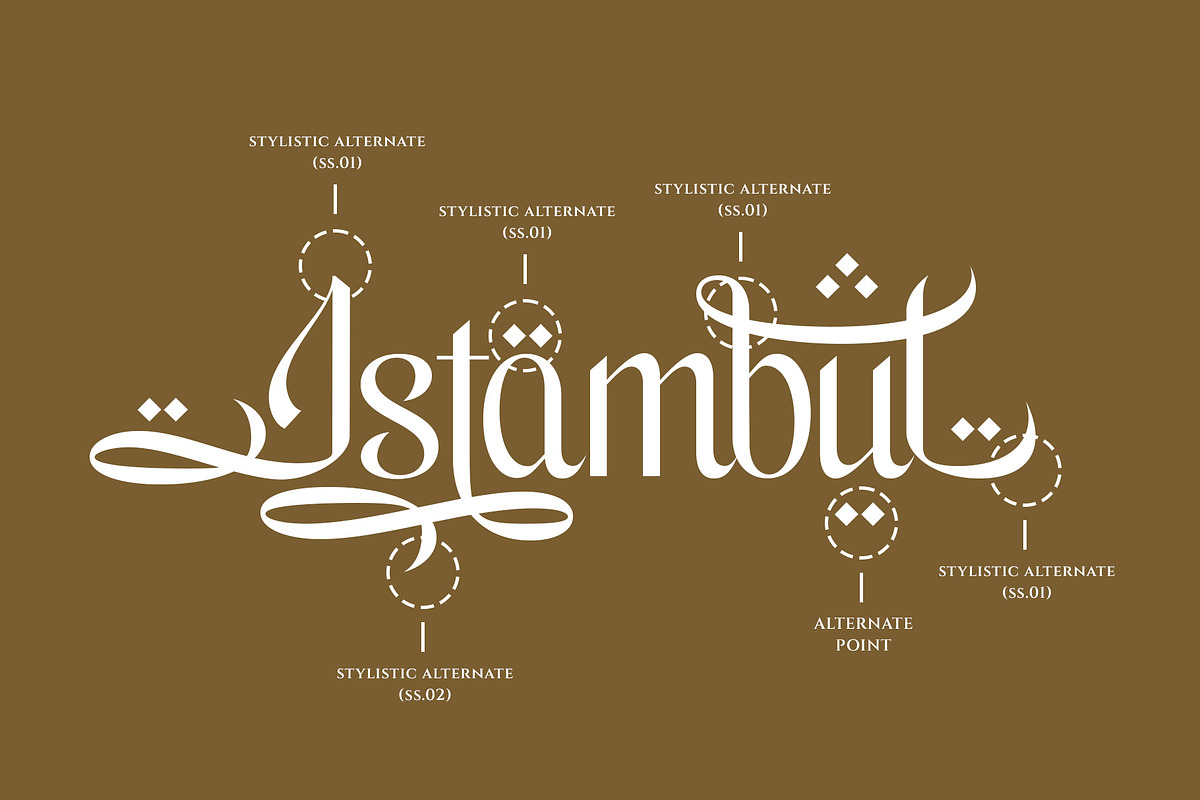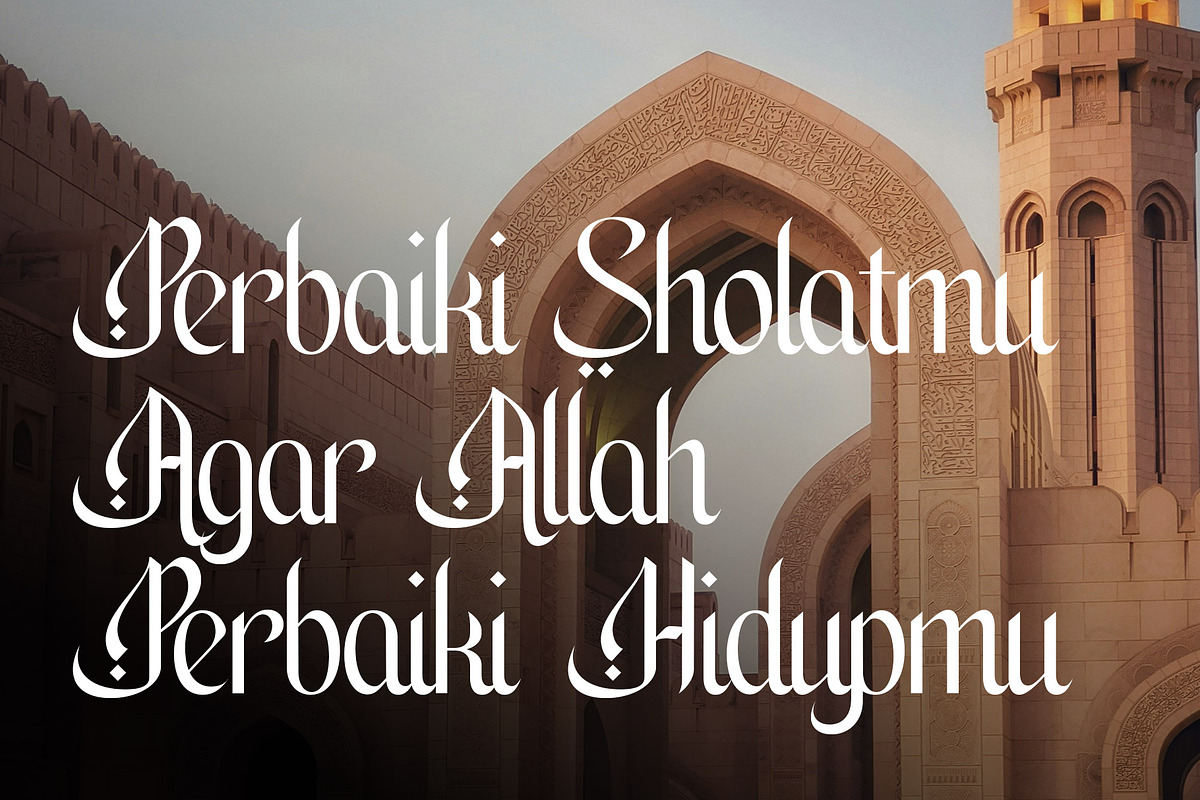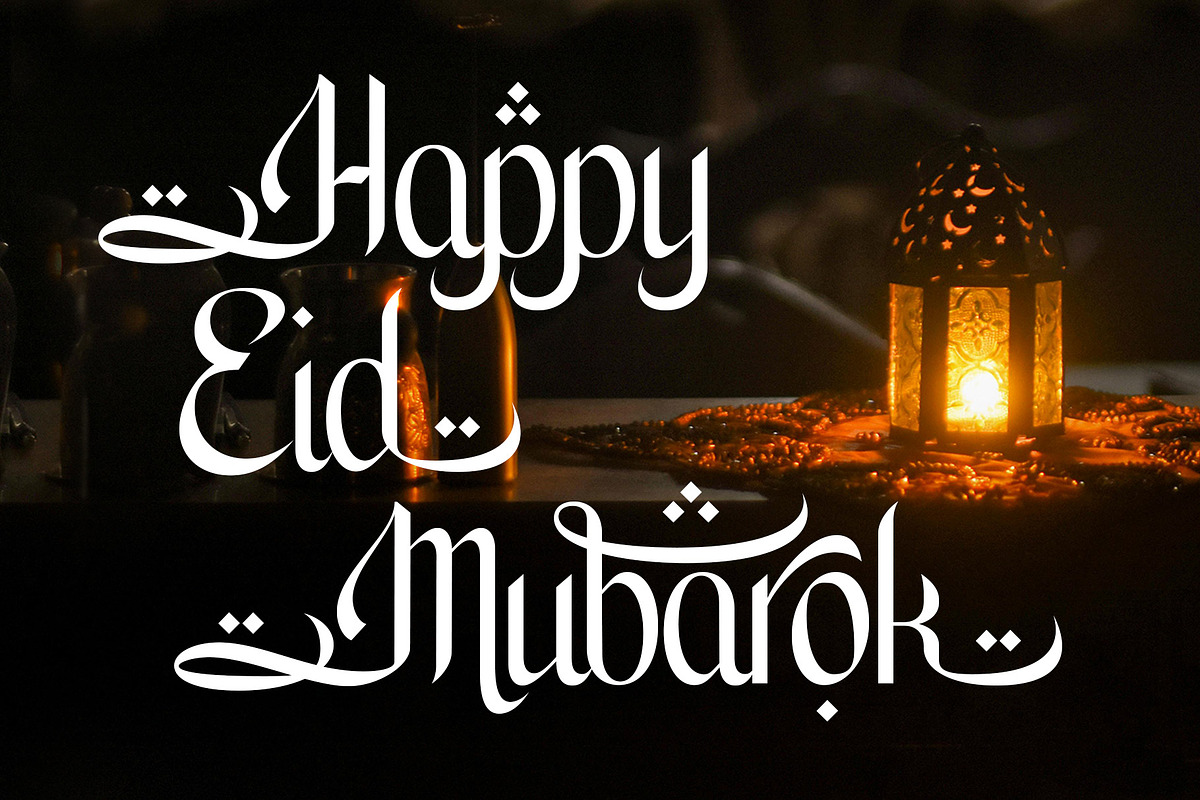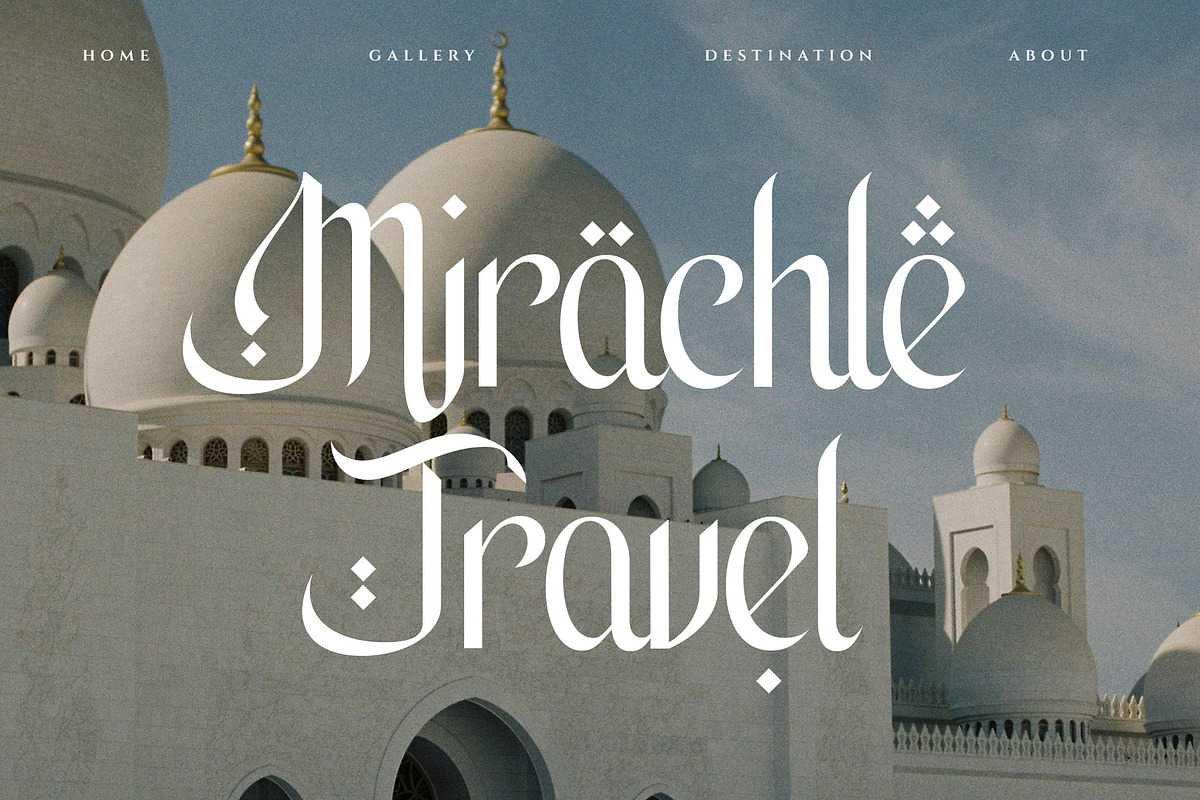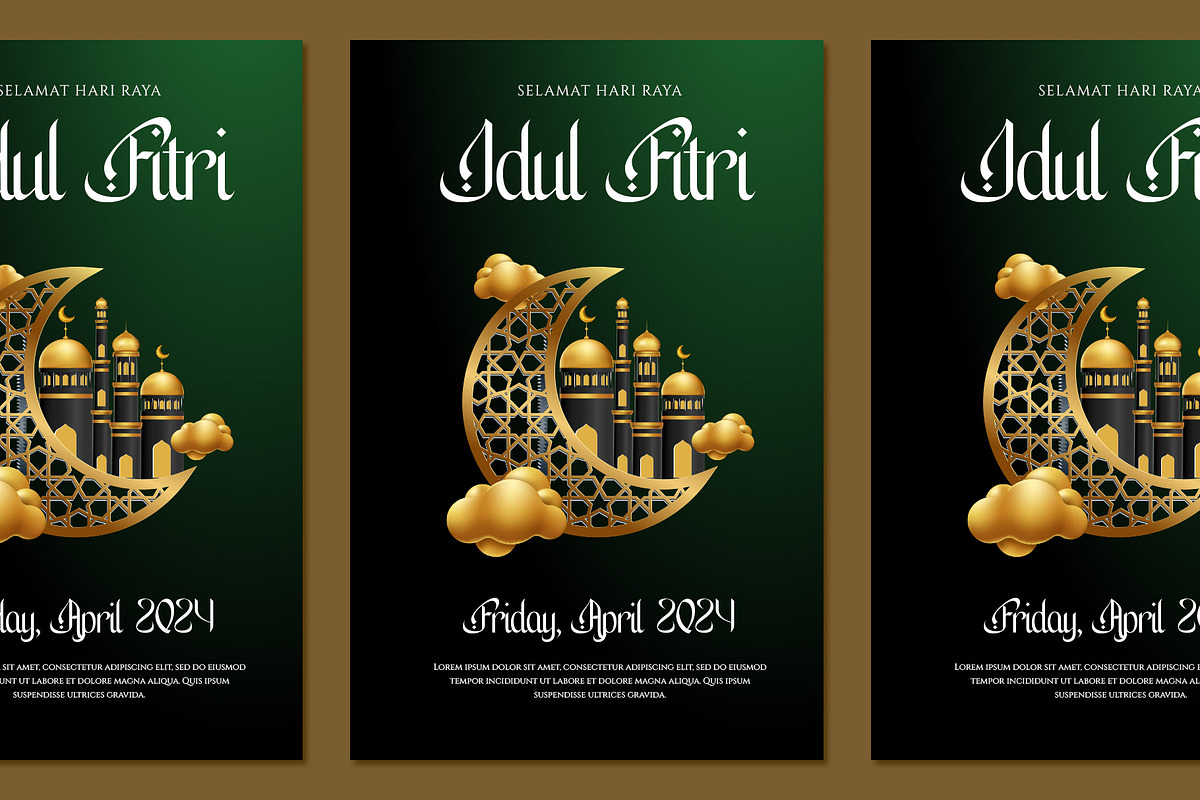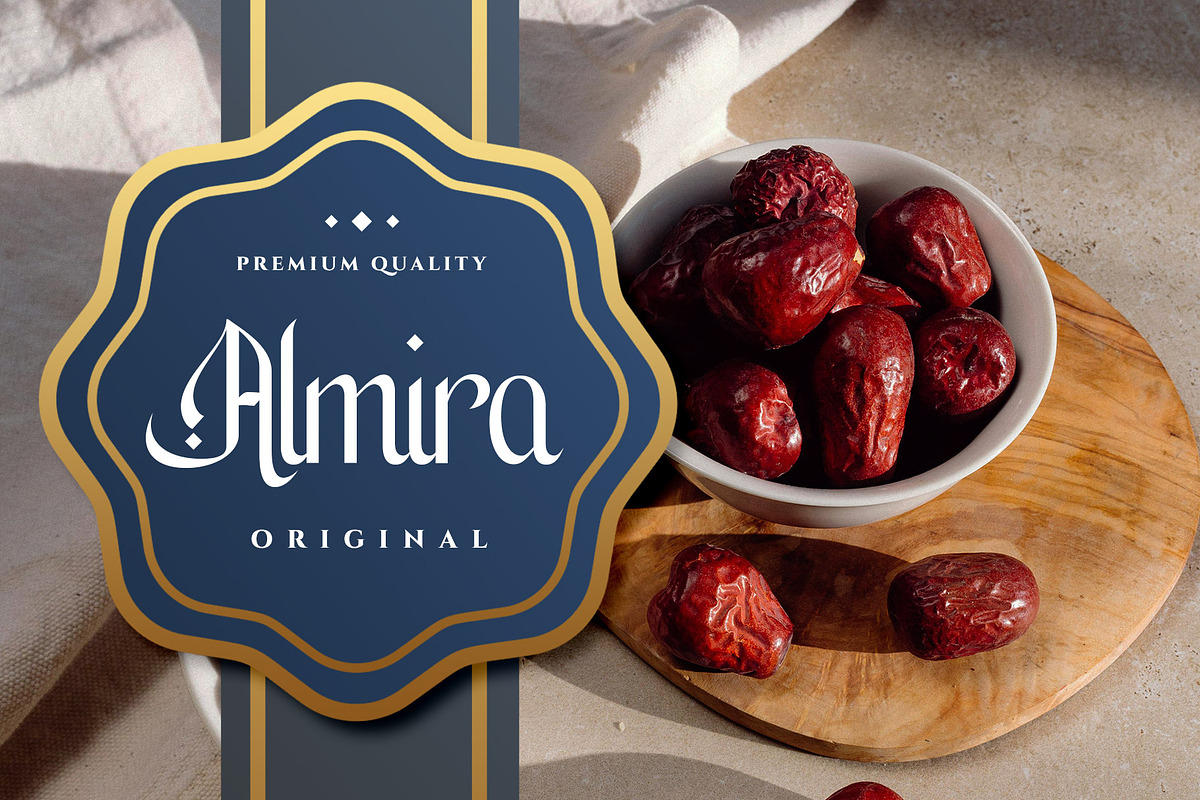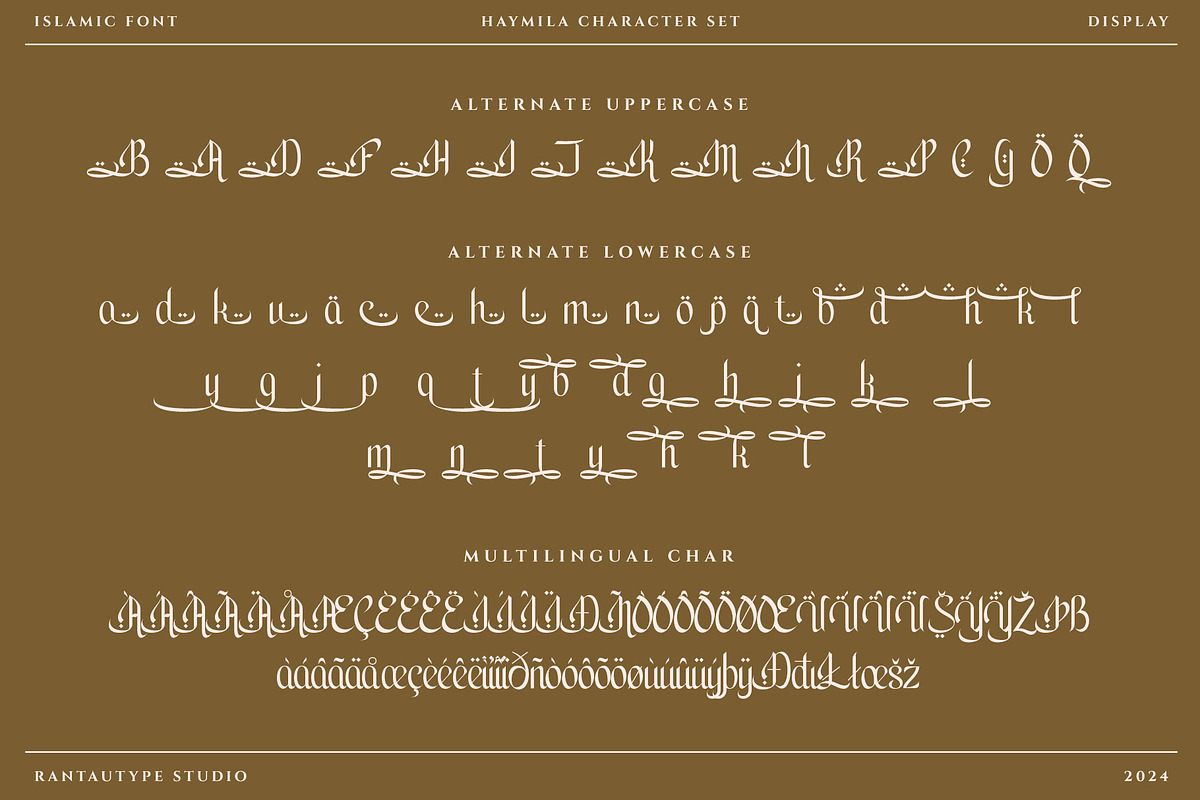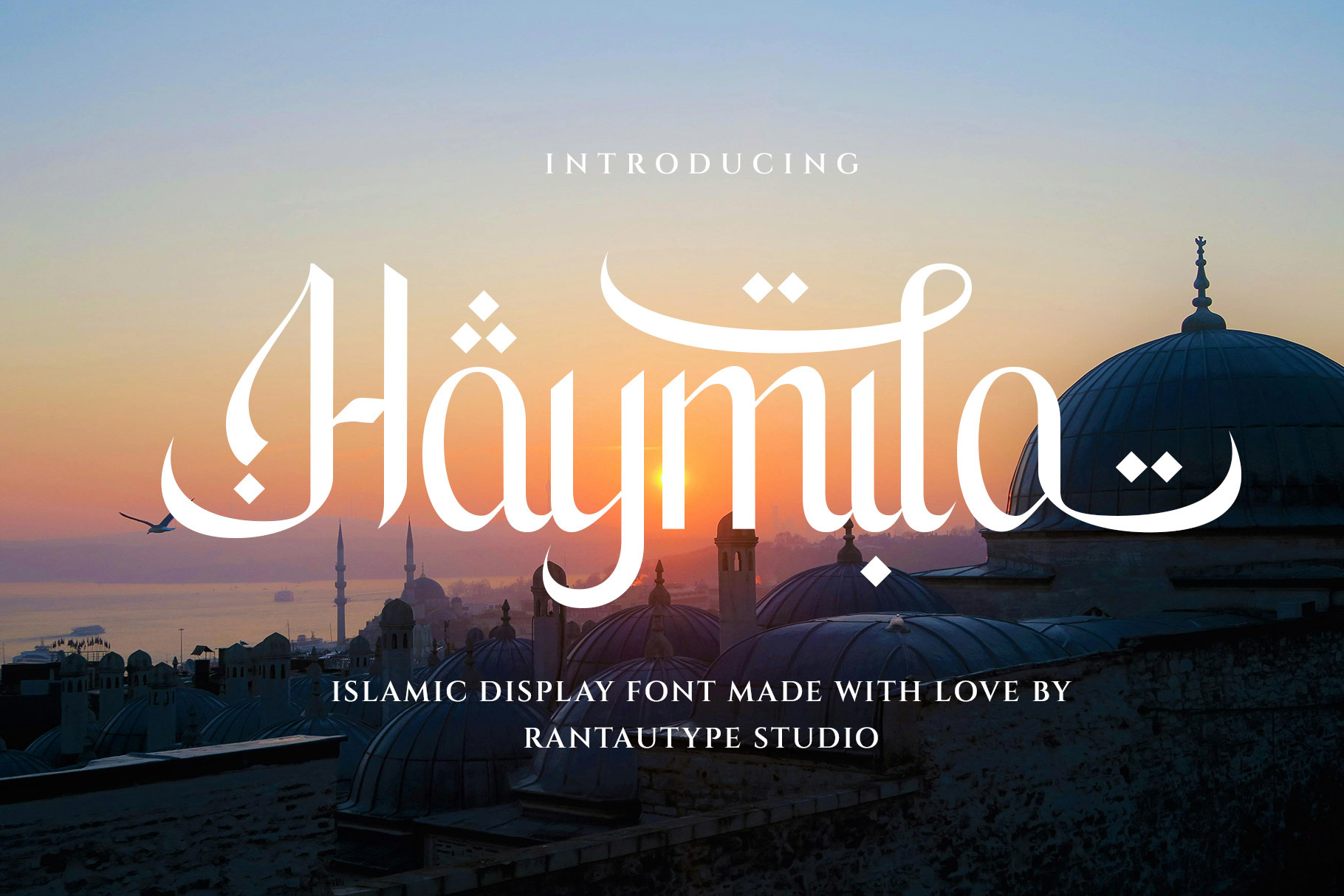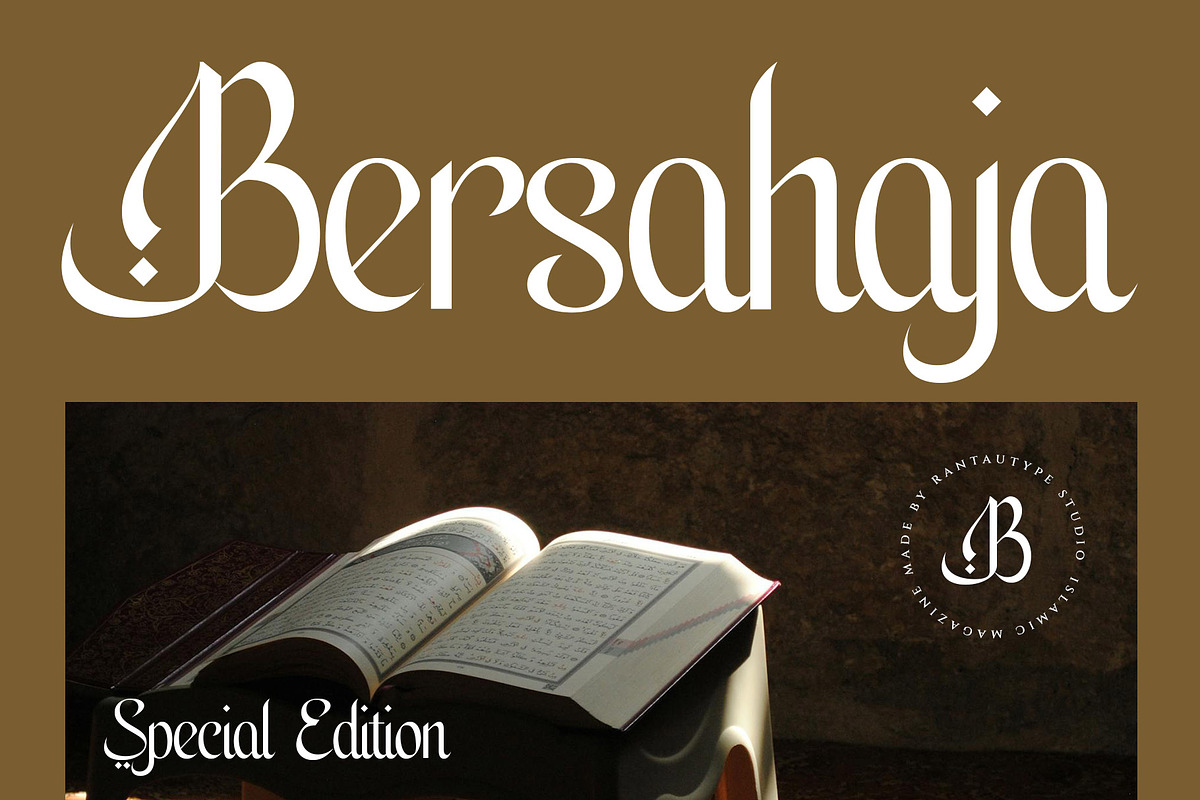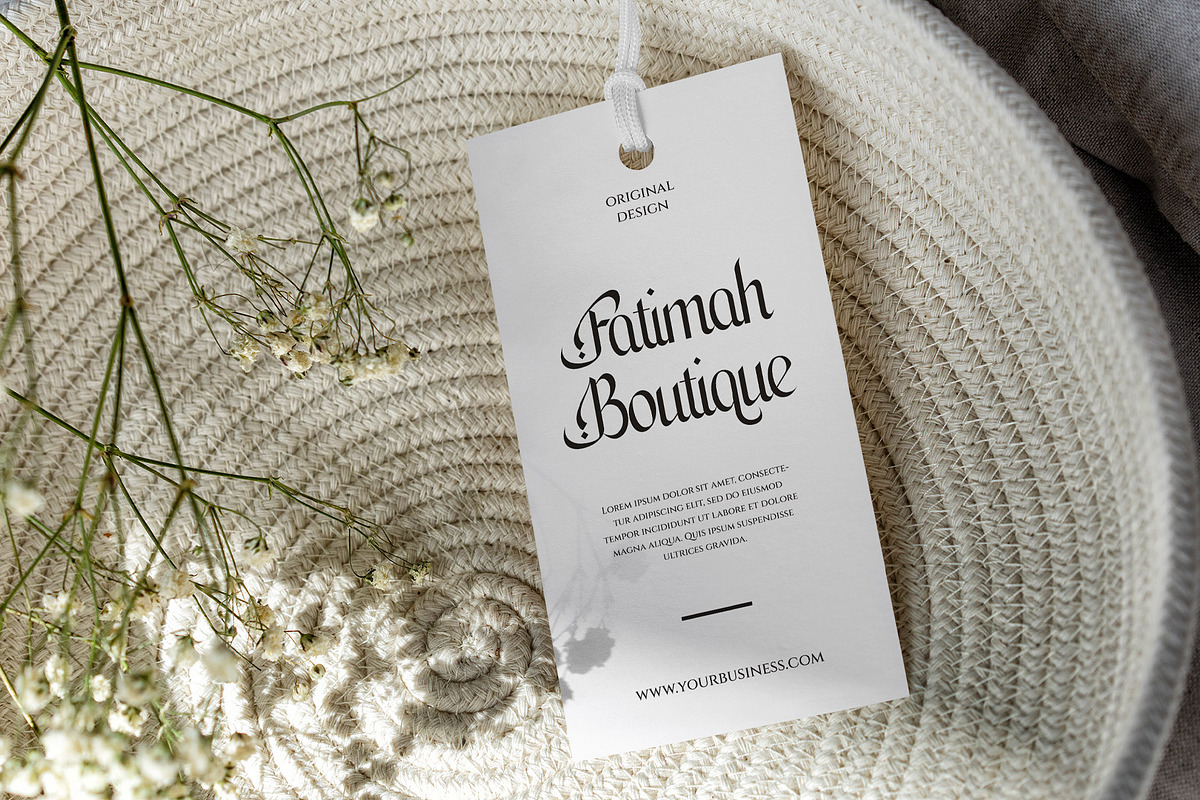
Haymila Islamic Display Font
Haymila is islamic font with elegant character. Haymila come with beautiful alternate you can mix and match to create awesome design project.
Haymila is a beautiful choice for any creative endeavor, creating, modern, chic, lifestyle design such as logotype, title, cover, branding, invitations, wedding designs, display and magazine, social media posts, advertisements, printed quotes, product packaging, corporate brand, product designs, labels, photography, watermarks, special events and any other project with Islamic touch.
- Alternate and ligature